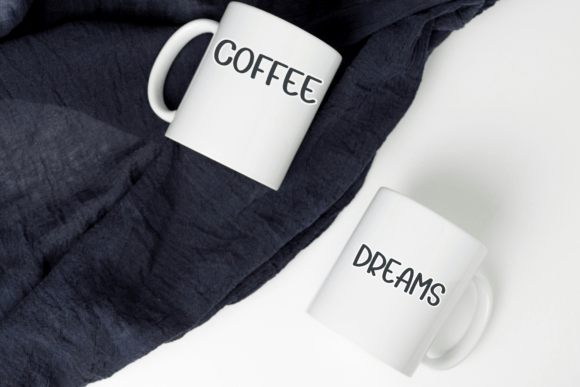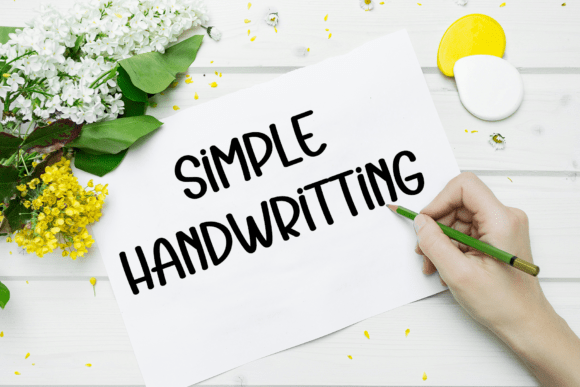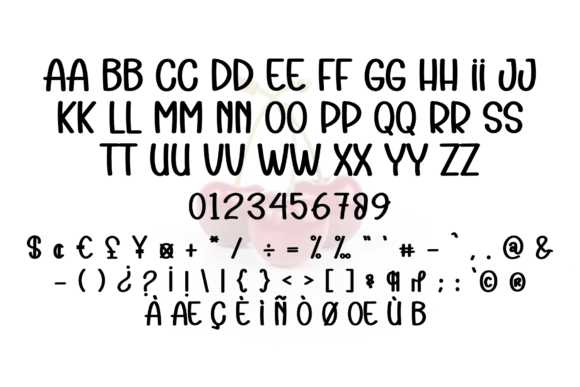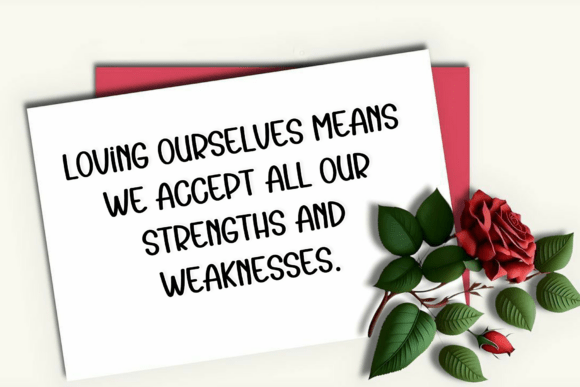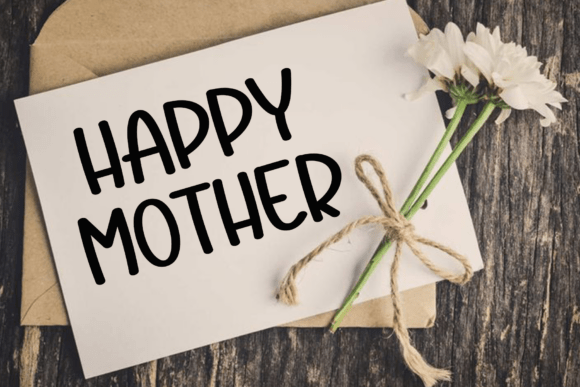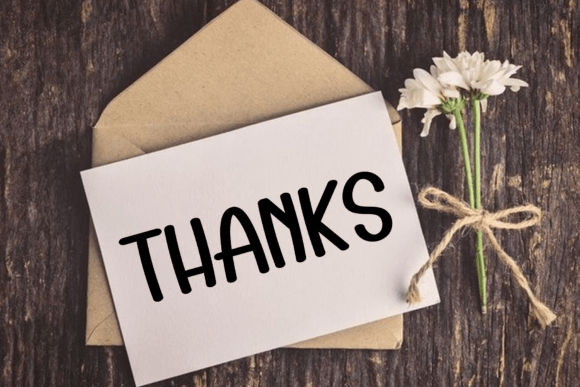
Introducing Cherry Font: The Simple Handwritten Font for All Your Design Needs
Are you looking for a font that can add a touch of simplicity and natural elegance to your designs? Look no further than Cherry Font, a beautiful handwritten font that is perfect for a wide range of applications. From greeting cards to headlines, Cherry Font is a versatile and reliable choice that is sure to impress.
What is Cherry Font?
Cherry Font is a simple handwritten font that is designed to be easy to read and visually appealing. Its clean lines and natural flow make it perfect for designs that require a personal touch. Whether you’re creating a greeting card, a poster, or a social media graphic, Cherry Font is a great choice.
Key Features of Cherry Font
• Simple and Handwritten: Cherry Font has a simple and handwritten design that gives it a natural and elegant feel.
• Versatile: This font is perfect for a wide range of applications, from greeting cards to headlines, and can be used in both digital and print designs.
• Easily Readable: Cherry Font is designed to be easy to read, making it perfect for designs that require a clear and concise message.
• Highly Customizable: Cherry Font can be customized to fit your design needs, making it easy to match your brand’s style and tone.
Applications of Cherry Font
Cherry Font is a versatile font that can be used in a wide range of applications, including:
• Greeting Cards: Cherry Font is perfect for creating beautiful and personalized greeting cards for special occasions.
• Headlines: This font is great for creating eye-catching headlines that are sure to grab attention.
• Social Media Graphics: Cherry Font can be used to create engaging and visually appealing social media graphics.
• Posters: This font is perfect for creating posters that require a clear and concise message.
• Branding: Cherry Font can be used to create a consistent brand image and tone.
Benefits of Using Cherry Font
There are many benefits to using Cherry Font in your designs, including:
• Unique and Personalized: Cherry Font adds a personal touch to your designs, making them stand out from the crowd.
• Easily Readable: This font is designed to be easy to read, making it perfect for designs that require a clear and concise message.
• Versatile: Cherry Font can be used in a wide range of applications, making it a great addition to any designer’s toolkit.
Tips for Using Cherry Font
Here are some tips for using Cherry Font in your designs:
• Use it with Images: Cherry Font looks great when paired with images, making it perfect for designs that require a visual element.
• Experiment with Colors: This font looks great in a variety of colors, so don’t be afraid to experiment and find the perfect color for your design.
• Keep it Simple: Cherry Font is a simple font, so keep your design simple and clean to let the font shine.
• Pair it with Other Fonts: Cherry Font can be paired with other fonts to create a unique and visually appealing design.
Cherry Font is a beautiful and versatile handwritten font that is perfect for a wide range of applications. Its simple and natural design makes it easy to read and visually appealing. Whether you’re a designer or a crafter, Cherry Font is a great addition to your toolkit. With its highly customizable design and wide range of applications, Cherry Font is sure to become a favorite font for many designers.